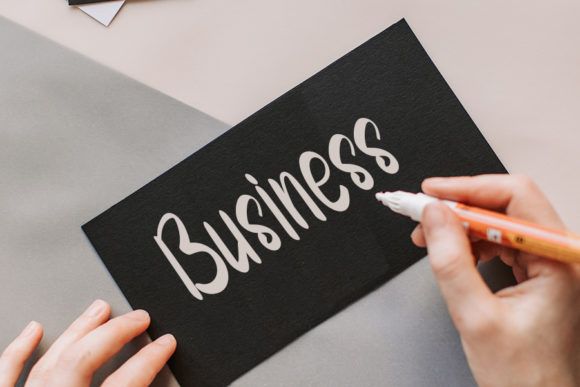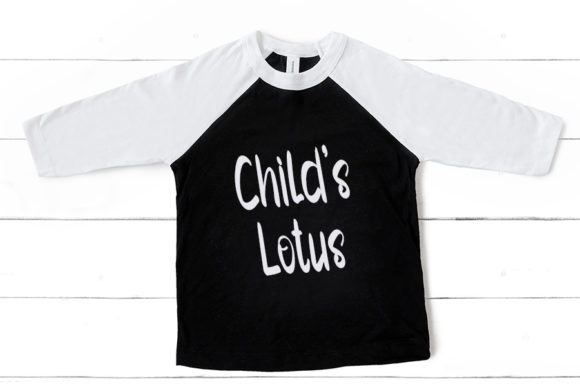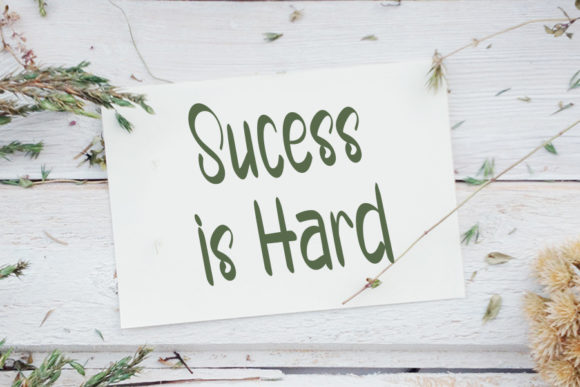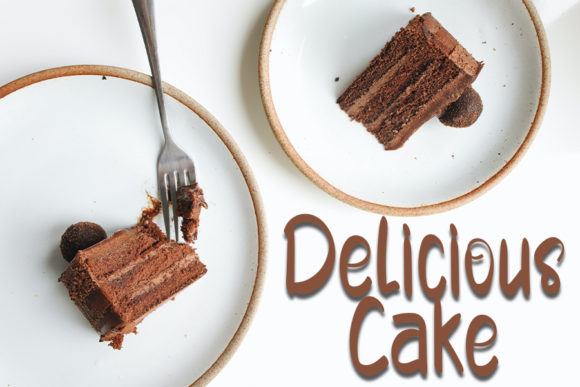
Happy Birthday Font: The Perfect Addition to Your Design Arsenal
Are you tired of using the same old fonts for your designs? Do you want to add a touch of personality and whimsy to your creations? Look no further than the Happy Birthday font! This relaxed and friendly handwritten font is sure to take your designs to the next level.
What is Happy Birthday Font?
Happy Birthday is a beautiful, handcrafted font that exudes a sense of warmth and approachability. Its simple yet effective design makes it perfect for a wide range of projects, from birthday cards and party invitations to blog posts and social media graphics.
One of the standout features of Happy Birthday font is its strong visual effect. The font’s unique character and charm are sure to grab the attention of your audience and leave a lasting impression. Whether you’re a designer, crafter, or DIY enthusiast, this font is a must-have in your toolkit.
Key Features of Happy Birthday Font
- Relaxed and Friendly: Happy Birthday font has a laid-back, approachable vibe that’s perfect for creating designs that feel warm and inviting.
- Handwritten Style: The font’s handwritten style gives it a personal, human touch that’s hard to replicate with more formal fonts.
- Simple yet Effective: Despite its simplicity, Happy Birthday font has a strong visual effect that’s sure to elevate your designs.
- Versatile: This font is perfect for a wide range of projects, from digital designs to print materials.
Why Use Happy Birthday Font?
So why should you choose Happy Birthday font for your next project? Here are just a few reasons:
- Adds Personality: Happy Birthday font allows you to add a touch of personality to your designs, setting them apart from more generic, cookie-cutter creations.
- Easy to Read: The font’s clear, legible design makes it easy for your audience to read and understand your message.
- Customizable: Happy Birthday font can be customized to fit your brand’s unique style and aesthetic.
- Time-Saving: With Happy Birthday font, you can create professional-looking designs in no time, saving you hours of time and effort.
How to Use Happy Birthday Font
Using Happy Birthday font is easy! Here are a few tips to get you started:
- Pair with Other Fonts: Combine Happy Birthday font with other fonts to create a unique, layered look.
- Experiment with Colors: Try out different colors and color combinations to find the perfect match for your design.
- Play with Size: Experiment with different font sizes to add emphasis and create visual interest.
Happy Birthday font is a perfect addition to any designer’s or crafter’s toolkit. Whether you’re creating digital designs, print materials, or handmade crafts, this font is sure to inspire and delight.
Designers will love the font’s versatility and customization options, while crafters will appreciate its whimsical, handmade feel. With Happy Birthday font, the possibilities are endless!
In conclusion, Happy Birthday font is a must-have for anyone looking to add a touch of personality and whimsy to their designs. With its relaxed, friendly vibe and strong visual effect, this font is sure to take your creations to the next level.